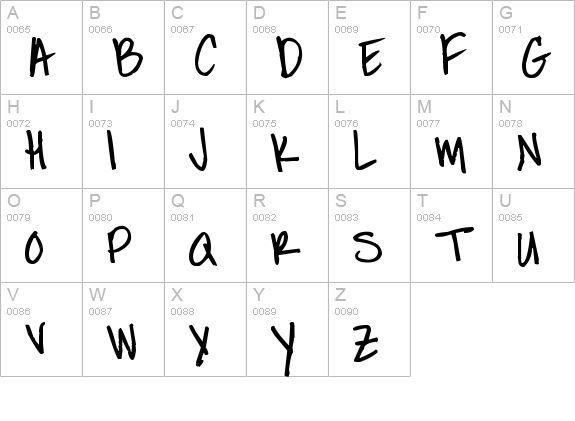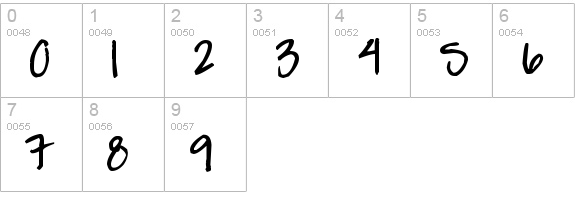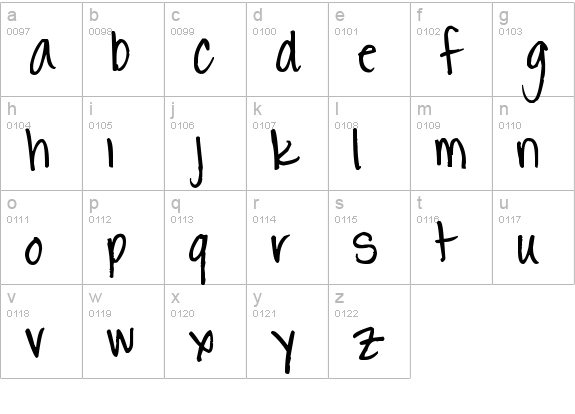
Pea Jessi Font Details
Pea Jessi font is a charming and playful typeface that exudes a sense of whimsy and creativity. Its handwritten style gives a personal touch to any project, making it perfect for invitations, greeting cards, and social media graphics. The delicate curves and unique flourishes of Pea Jessi font add a touch of elegance to your designs, while still maintaining a fun and approachable feel. The best part about Pea Jessi font is that it is completely free to download. You can easily access this delightful font at FontsMarket.com and start using it in your projects right away. Whether you're a designer looking to add a touch of personality to your work or a hobbyist creating homemade cards and gifts, Pea Jessi font is sure to inspire and delight. Download Pea Jessi font today and let your creativity soar!